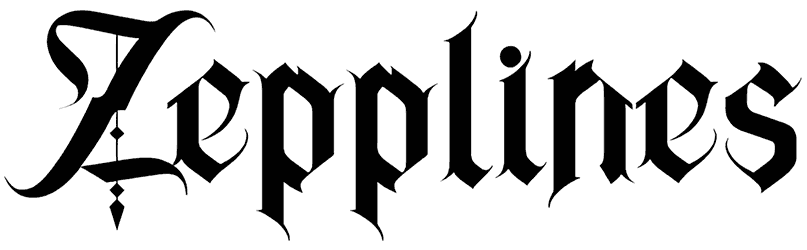
Zepplines Font
Do you want to show off the art of choosing your own font for a tattoo? So, download Zepplines. The mismatched and classic effect of this font, reminiscent of ancient Roman writing, can add an artistic touch to advertisements, posters, social media posts, and even greeting cards, giving them a personalized look.
This blackletter font is a great way to add a sense of authenticity and personality to any design.